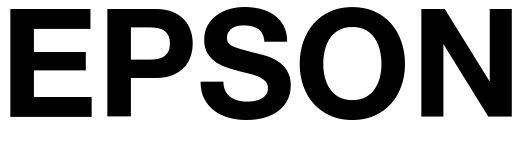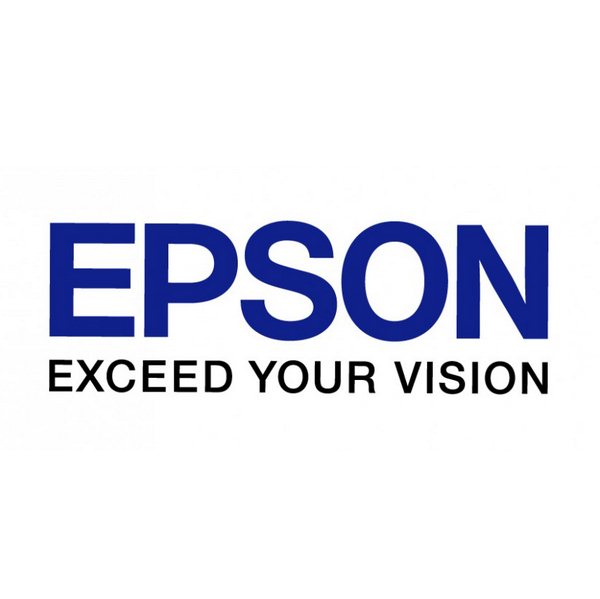
ElectronicsEpson is a global electronics company specializing in the production of imaging products, such as printers, projectors, and scanners, as well as wearable devices and robotics.
The iconic Epson logo features its logotype in a classic shade of blue, accompanied by the company's tagline "EXCEED YOUR VISION". The font used for this branding is a sans serif style, similar to the popular commercial font called Helvetica Neue 55 Bold. This font can be easily purchased and you can download it here.